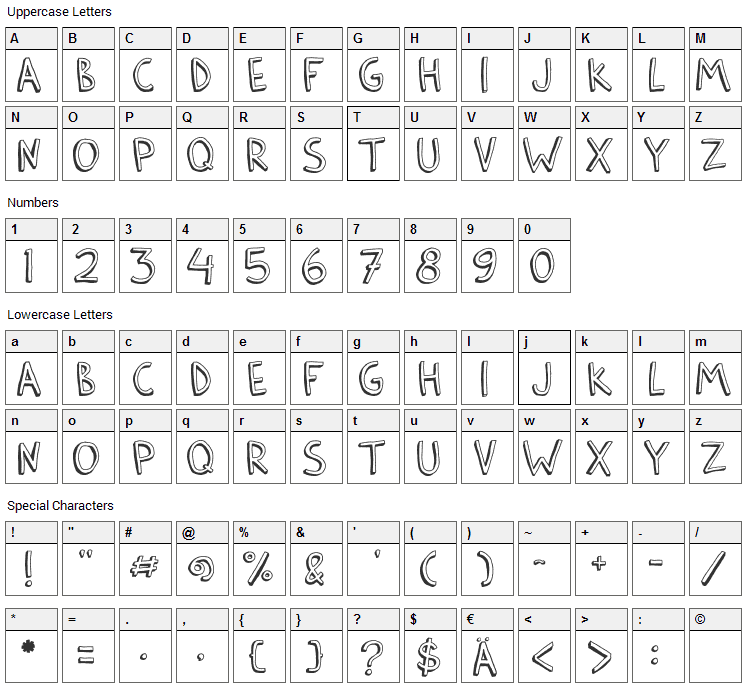
Barlow by Thunderpanda Font
Font Name:Barlow by Thunderpanda
Developer:Eric Wiryanata
Category:Fancy > Outline
A new set of fonts by Thunderpanda aka (ehmmm me) called Barlow (taken from Lou Barlow). I think this is the most complete set by far.